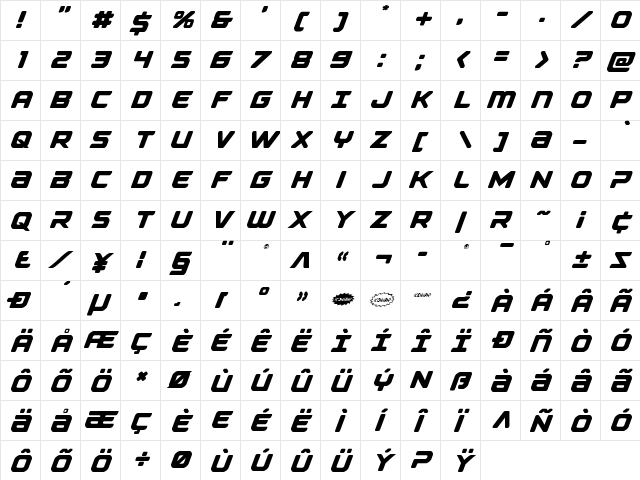
Falcon Punch Regular
Design Context for Falcon Punch Typeface
Falcon Punch is a composed and adaptable typeface that performs quietly and consistently across a wide range of design contexts.
Pro Tip: Use Falcon Punch in both headline and body roles to test its range before committing to a single application.